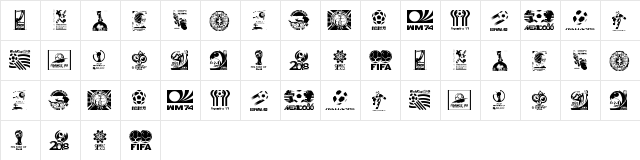
World Cup logos Regular Font Preview
World Cup logos Regular
Design Context for World Cup logos Typeface
World Cup logos is a composed and adaptable typeface that performs quietly and consistently across a wide range of design contexts.